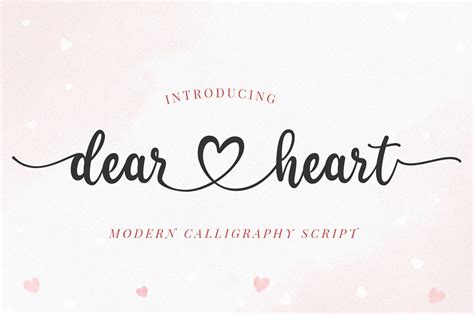
Dear Heart Font
Dear Heart Font - Dear heart calligraphy font has beginning lowercase, ending lowercase, connecting heart lowercase alternates. Web dear heart calligraphy font. Download free for personal use. 182,081 downloads (98 yesterday) free for personal use. Dear heart calligraphy script font here at. 182,385 downloads (159 yesterday) 10 comments free for personal use. Web dear heart font is perfect for social media, branding, logos, wedding stationery, quotes, and more.